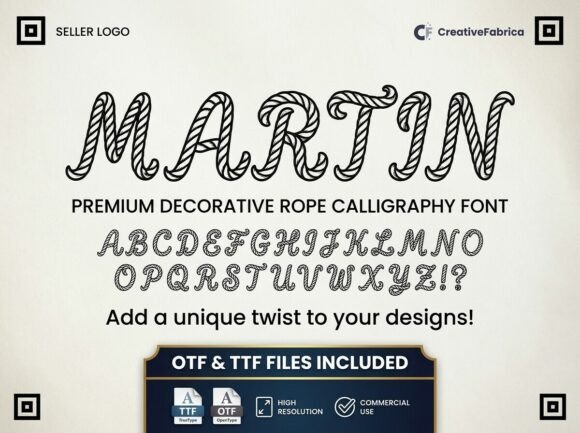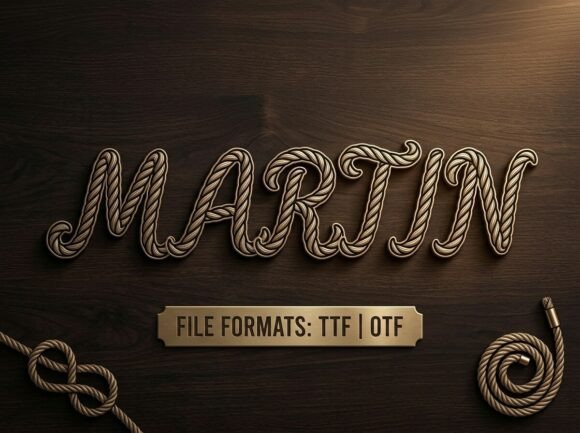
Introduction to Martin Font
Set sail for a new level of creativity with Martin, a masterful display script where every stroke is meticulously crafted from twisted rope.
This font perfectly balances the rugged texture of maritime adventure with the elegant flow of traditional cursive It is the definitive choice for nautical branding, coastal-inspired apparel, seafood restaurant logos, and western or rustic-themed event stationery.
Key Features of Martin Font